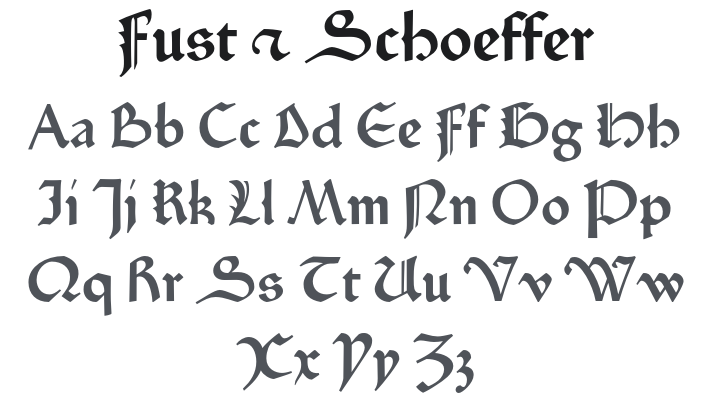
Fust & Schoeffer Font
About Fust & Schoeffer
Fust & Schöffer 'Durandus' 118G, Gotico-Antiqua first used in Mainz by Peter Schöffer & Johann Fust for Guillaume Durand’s Rationale Divinorum Officorum in 1459. The book displays two sizes, the smaller 92G for the main text and the bigger and more contrasted 118G used only for the colophon and later for the famous 48-line Bible in 1462. Used until the end of the century. Type design workshop at Hochschule Mainz and Gutenberg-Bibliothek, Mainz, June 2016.